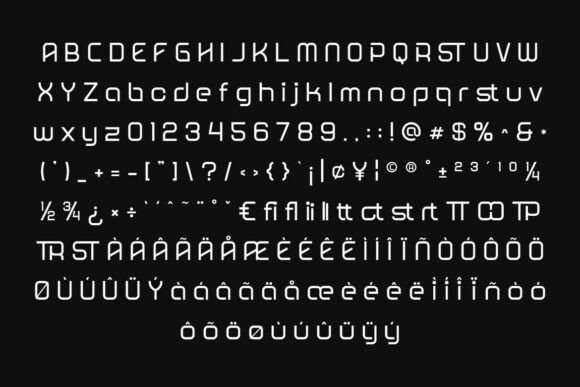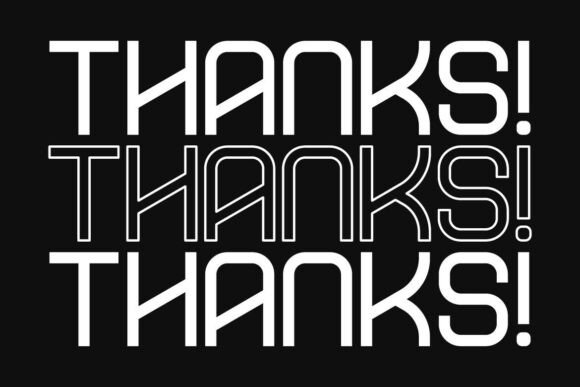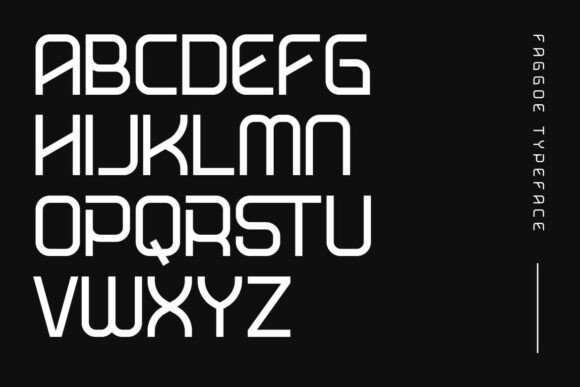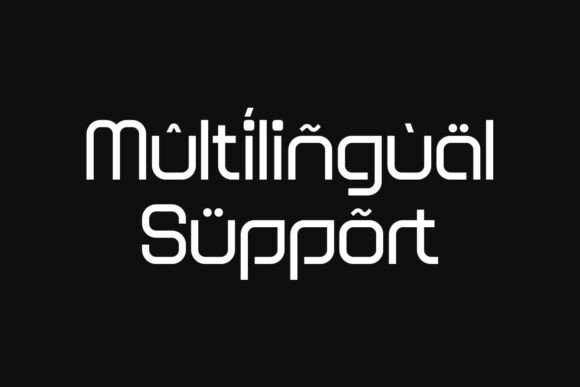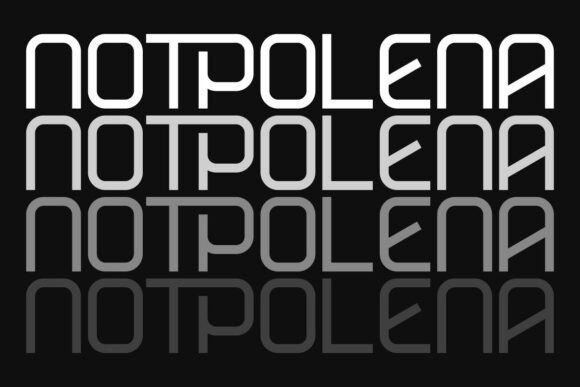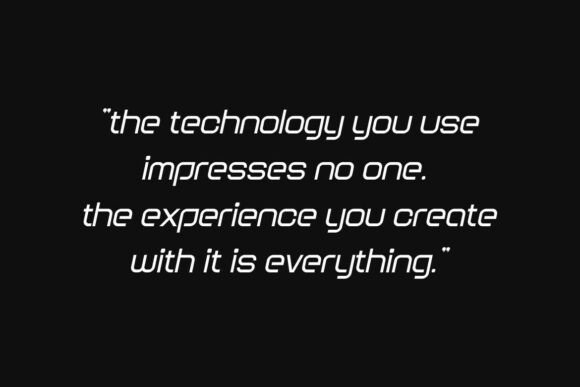
First Impressions: A Modern Minimalist
Faggoe is a clean and modern minimalist technology font designed to express innovation, clarity, and digital sophistication. Built with sharp lines, balanced geometry, and streamlined proportions, Faggoe delivers a futuristic aesthetic while maintaining excellent readability. It’s perfect for designers, crafters, and creative hobbyists looking to add a touch of modernity to their projects.
- ✨ Clean and modern design: Faggoe’s sleek lines and balanced geometry make it perfect for tech-related projects or any design that requires a modern touch.
- ✅ Excellent readability: Even at small sizes, Faggoe remains clear and easy to read, making it ideal for body text or captions.
- 💻 Versatile: Faggoe works well for both digital and print projects, from websites and apps to brochures and posters.
While Faggoe is an excellent font, there are a few things to keep in mind:
- 🤔 Limited character set: Faggoe might not have extensive language support or special characters, so it’s essential to check if it covers your needs.
- ⚠️ Overuse of OpenType features: While Faggoe’s OpenType features are excellent, overusing them can make the text look cluttered or messy.
The Designer Behind Faggoe
Faggoe was designed by a team of typographers who aimed to create a font that embodies the spirit of innovation and digital sophistication. Inspired by the latest technological advancements and modern design trends, Faggoe is the result of careful craftsmanship and attention to detail.
Q: What is Faggoe font?
A: Faggoe is a clean and modern minimalist technology font designed to express innovation, clarity, and digital sophistication.
Q: Is Faggoe suitable for body text?
A: Yes, Faggoe is excellent for body text due to its excellent readability, even at small sizes.
Q: Does Faggoe support OpenType features?
A: Yes, Faggoe comes with a range of OpenType features, including stylistic alternates, ligatures, and more.